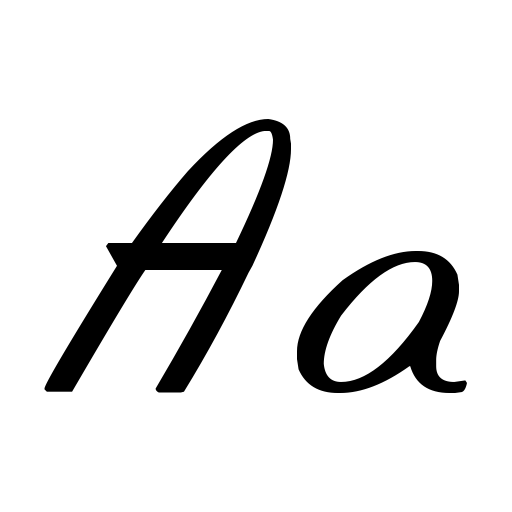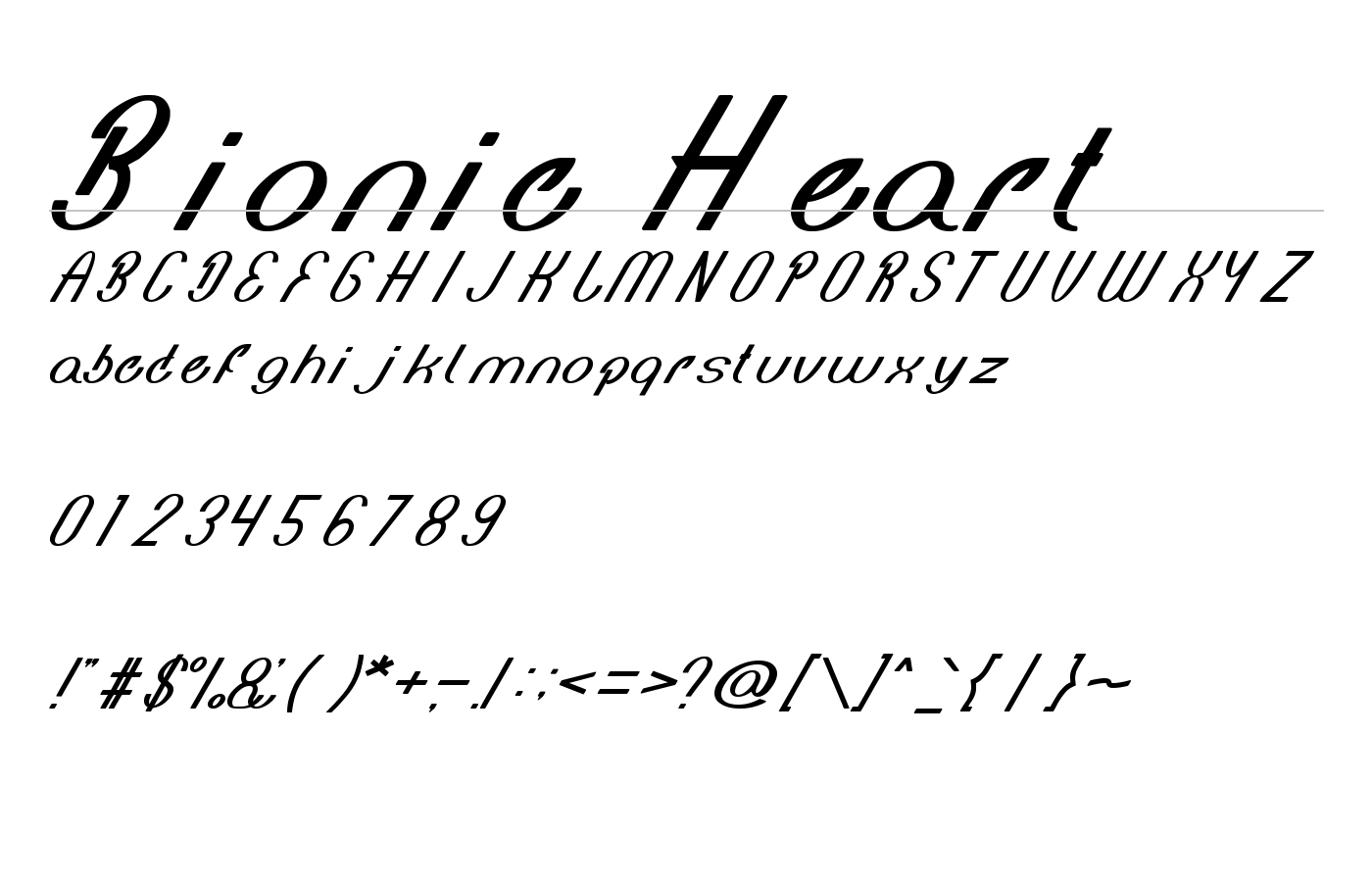
Bionic Heart is a sleek, modern script font with a futuristic, italicized style that combines elegance with technical precision. Its thin strokes and narrow letterforms create a streamlined, dynamic look ideal for branding, fashion, and technology-oriented designs that seek a sophisticated yet contemporary feel. This font works especially well in logos and headlines where a sense of innovation and style is desired.
Bionic Heart Font
About Bionic Heart Font